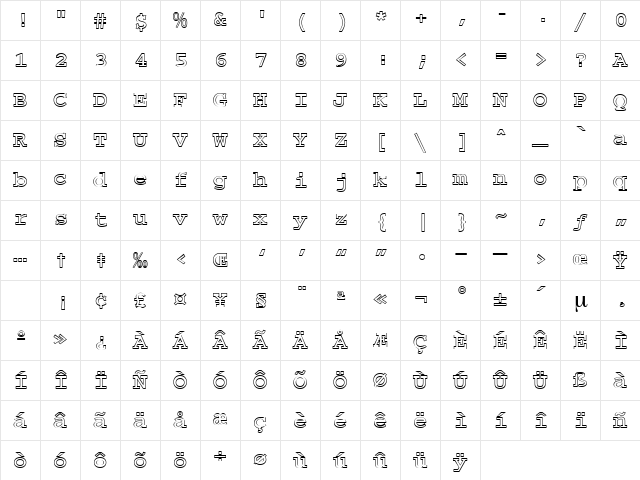
CountdownOpen Regular
Design Context for CountdownOpen
CountdownOpen is a composed and adaptable typeface that performs quietly and consistently across a wide range of design contexts.